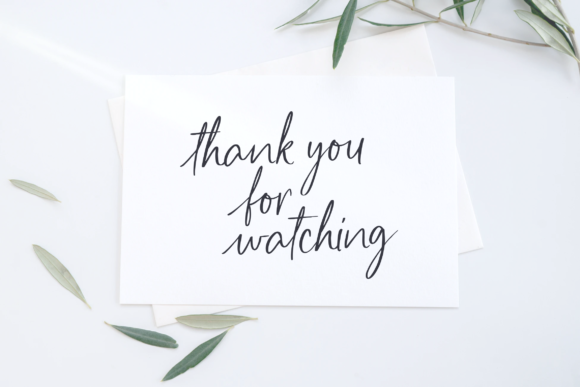
About Heartcraft Font
Heartcraft is an elegant and slim script font. It is perfectly suitable for projects that need a handwritten touch and a natural feel!